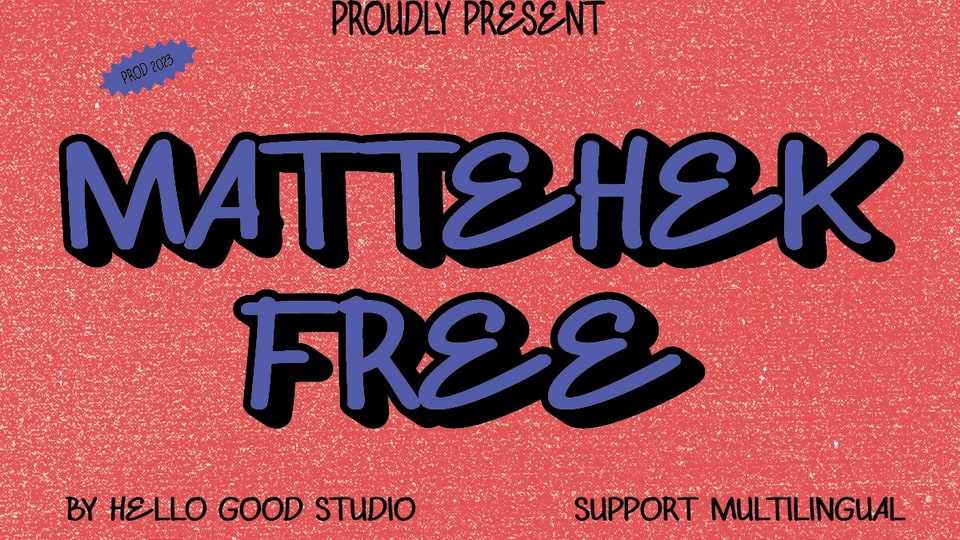
Download Mattehek font, a simple handwritten typeface, perfect for creating a relaxed and approachable vibe in your designs. Whether you’re crafting personal invitations, friendly blog headers, or warm branding materials, Mattehek font adds a touch of familiarity and heartfelt charm to every character.
Designer: Studio Hello Good